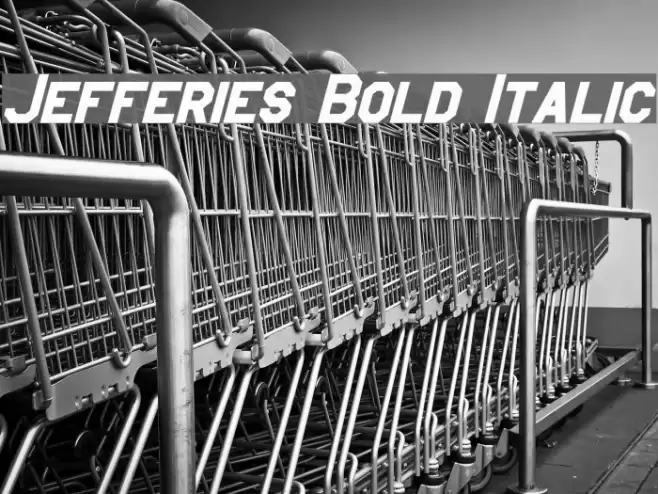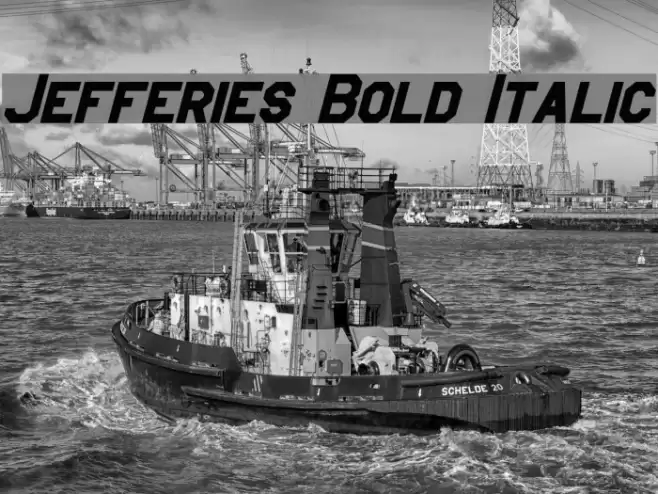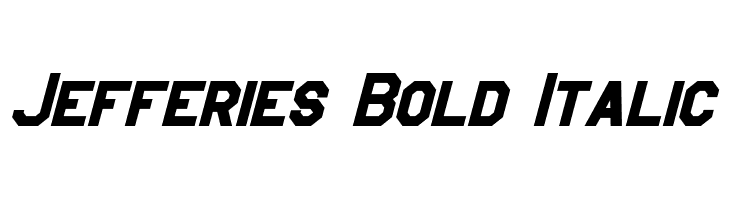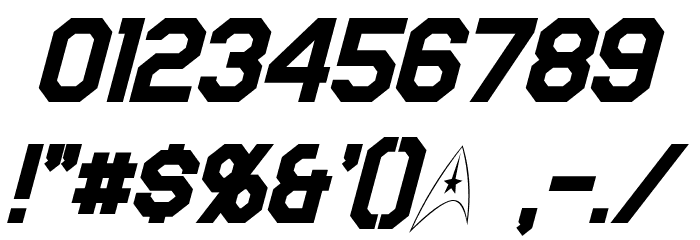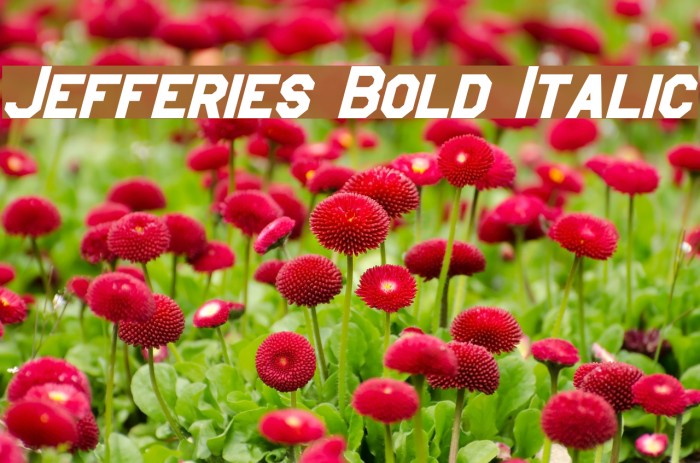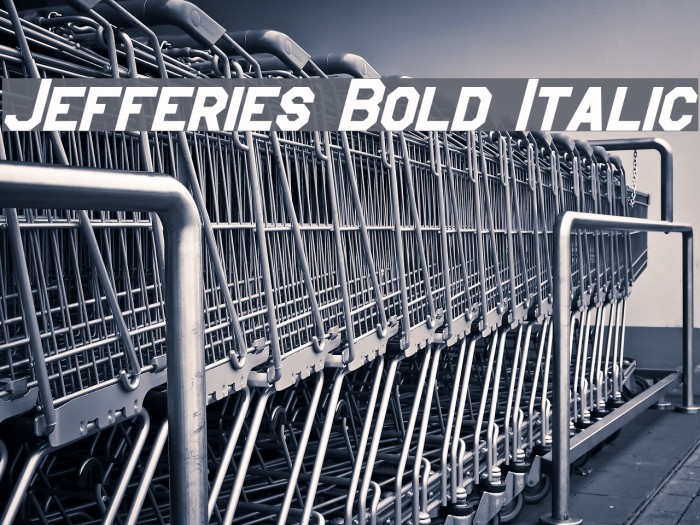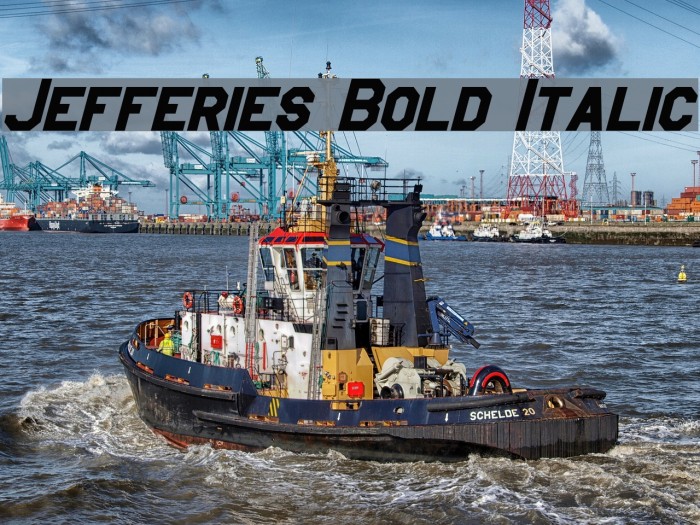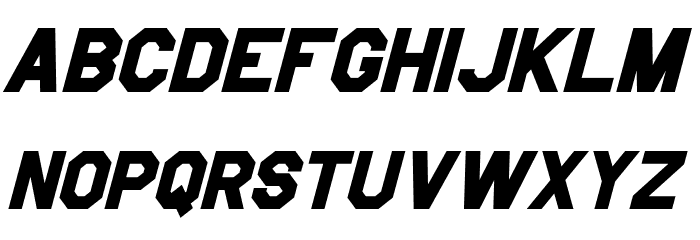
Jefferies Bold Italic Description
This font features a bold and italicized style with a strong, angular design. The characters are sharply defined with a futuristic and dynamic appearance, making it stand out with its unique geometric shapes. The uppercase and lowercase letters maintain a consistent slant, enhancing the italic effect. The numbers and special characters follow the same bold and angular design, ensuring uniformity across all elements. This font's distinct style is suitable for projects that require a modern and edgy look.
A bold, italicized font with a futuristic and angular design from Uncategorized fonts.
- Proposed Projects: Ideal for sci-fi themed projects, modern branding, posters, and video game graphics.